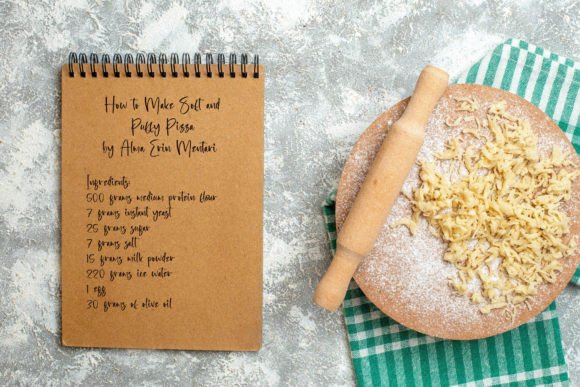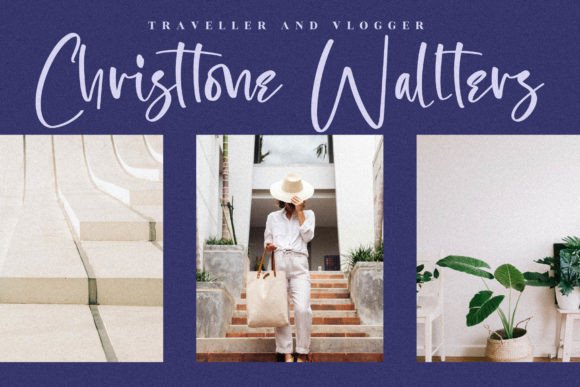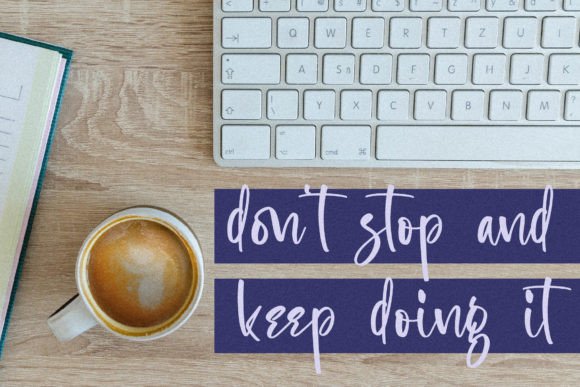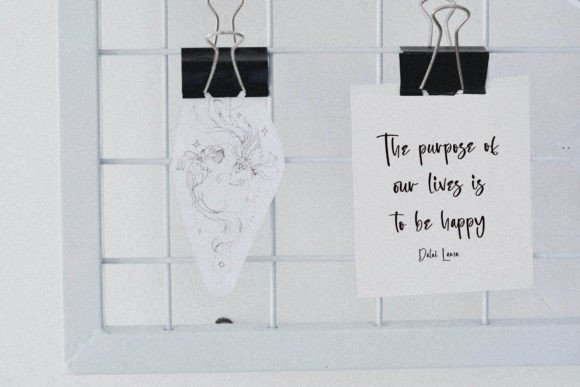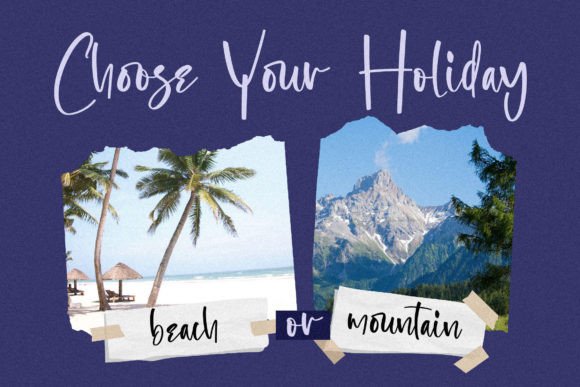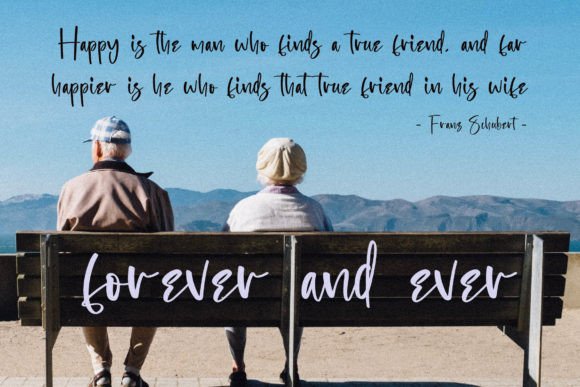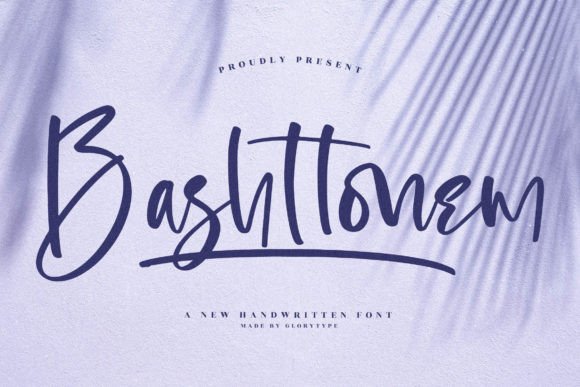
Discover the Charm of Bashttonem Font: Elevate Your Designs with a Timeless Handwritten Style
In the world of typography, few fonts manage to capture the essence of elegance and charm as effectively as Bashttonem. This lovely and timeless handwritten font has been making waves among designers and crafters alike, and for good reason. Whether you’re looking to create eye-catching logos, enhance your branding, or craft compelling quotes, Bashttonem is the perfect choice to bring your designs to life.
The Unique Appeal of Bashttonem
What sets Bashttonem apart from other fonts is its unique and beautiful touch. Every letter in this font is meticulously crafted to exude a sense of warmth and personality, making it an excellent addition to any design project. The fluidity and natural flow of Bashttonem’s handwritten style give it an organic feel that resonates with audiences and adds a personal touch to your creations.
Ideal for Logos and Branding
When it comes to creating logos and branding materials, the font you choose can significantly impact how your brand is perceived. Bashttonem, with its elegant and sophisticated appearance, is an excellent choice for businesses looking to establish a strong brand identity. Its timeless quality ensures that your logo or branding materials won’t go out of style anytime soon, providing a lasting impression on your customers.
Bringing Quotes to Life
For writers, poets, and anyone who loves to share inspiring quotes, Bashttonem offers a visually appealing way to present your words. The font’s beautiful and unique characters add an artistic flair to your quotes, making them stand out on social media, blogs, or printed materials. Whether you’re looking to motivate, inspire, or simply share your favorite sayings, Bashttonem can help you do so with style.
Why Designers and Crafters Love Bashttonem
Designers and crafters appreciate fonts that offer versatility, and Bashttonem delivers on this front. Its handwritten style is versatile enough to be used in a variety of projects, from digital content to print materials. Moreover, the font’s readability ensures that your message is conveyed clearly, without compromising on aesthetics.
Tips for Using Bashttonem Effectively
To make the most out of Bashttonem, consider the following tips:
- Pair it with complementary fonts: For maximum impact, pair Bashttonem with fonts that complement its style. A combination of serif and sans-serif fonts can create a visually appealing contrast.
- Experiment with colors: Bashttonem looks great in various colors, so don’t be afraid to experiment and find the perfect hue that matches your brand or design theme.
- Adjust the size and spacing: To ensure optimal readability, adjust the size and spacing of the text according to the medium you’re using.
Bashttonem is more than just a font; it’s a design element that can elevate your projects and make them truly memorable. Its unique blend of elegance, charm, and versatility makes it an excellent choice for designers and crafters looking to add a personal touch to their work. Whether you’re creating logos, branding materials, or quotes, Bashttonem is sure to bring your designs to life in a way that’s both timeless and captivating.